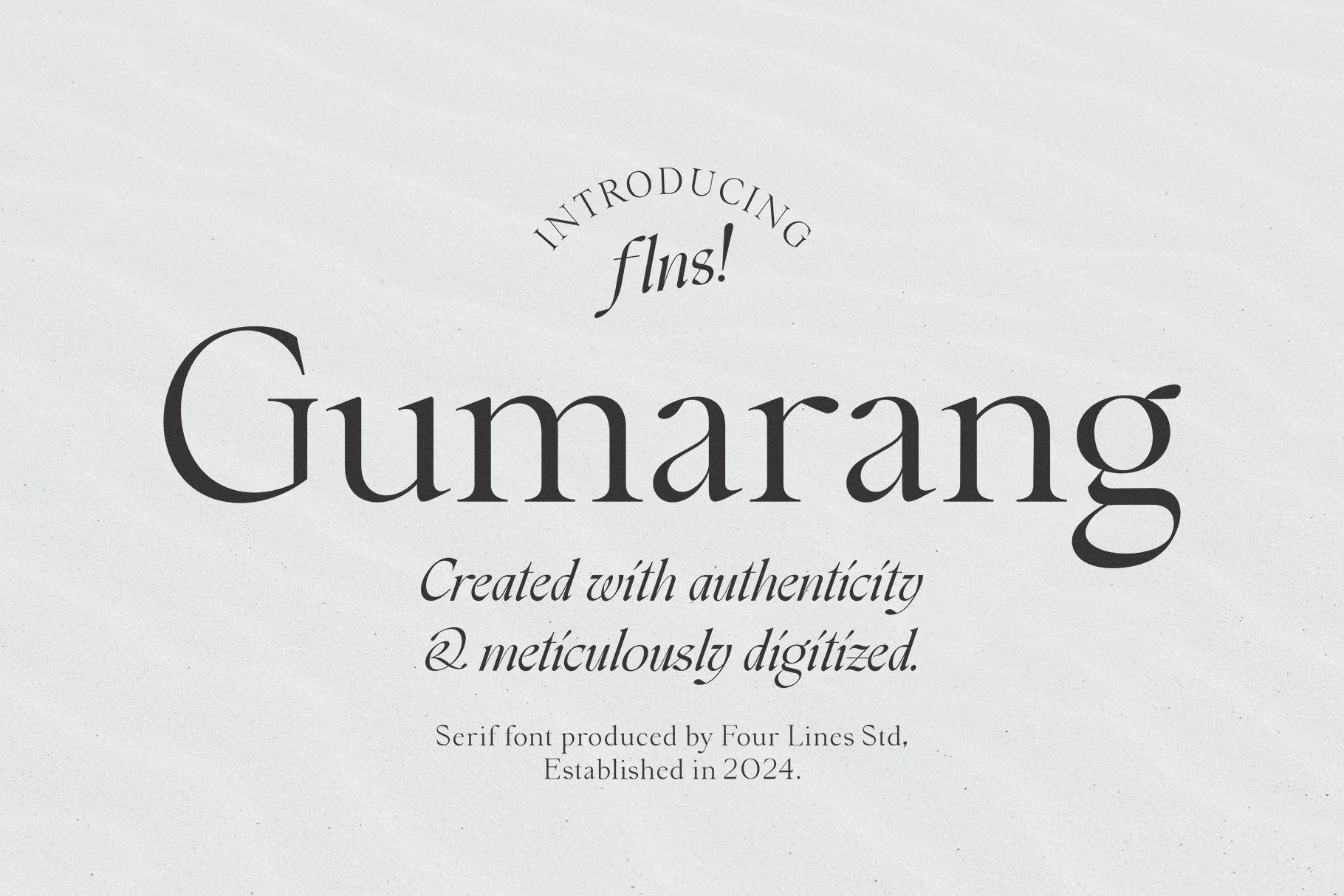
Gumarang - Serif Font
Presenting Gumarang, a refined serif font with slender, elegant strokes. Available in Regular and Italic styles, Gumarang's Italic variant draws subtle inspiration from calligraphy, offering a touch of grace and romance. This font is perfectly suited for projects that require an elegant, formal, or romantic touch, providing a timeless and polished look for any design. What’s included: - OTF - TTF - WOFF